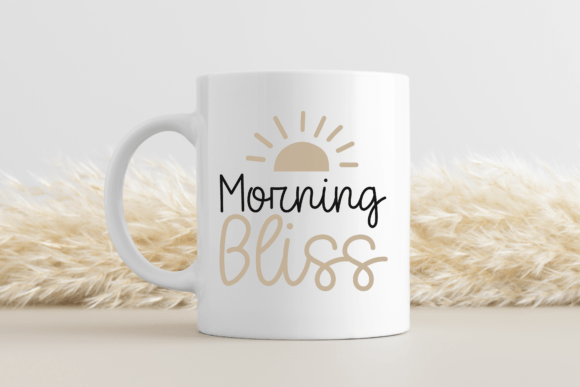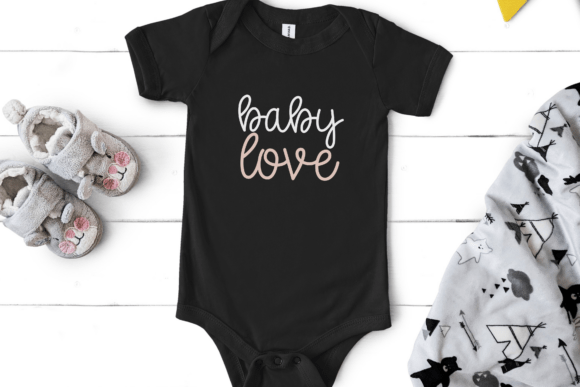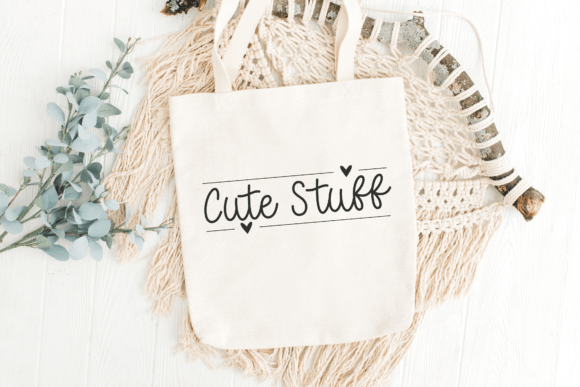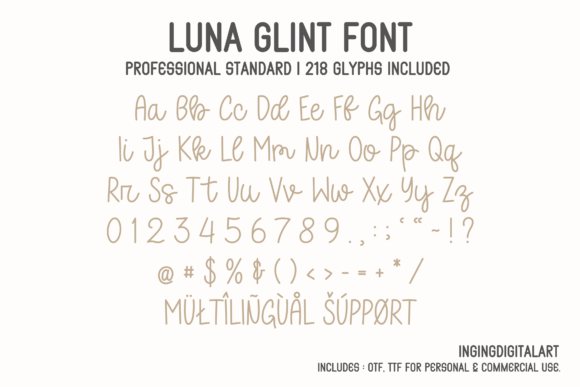
Introduction to Luna Glint Font
Elevate your creative projects with Luna Glint, a playful calligraphy font that perfectly blends stylish script with a charming, hand-lettered feel.
Featuring smooth, flowing strokes and a modern aesthetic, this typeface is the ideal choice for chic branding, lovely invitations, personalized gift designs, and trendy social media graphics Luna Glint comes as a professional standard set, including uppercase and lowercase letters, numbers, punctuation, and full multilingual support to bring a polished yet joyful touch to every design.
Key Features of Luna Glint Font
Why Choose Luna Glint Font?